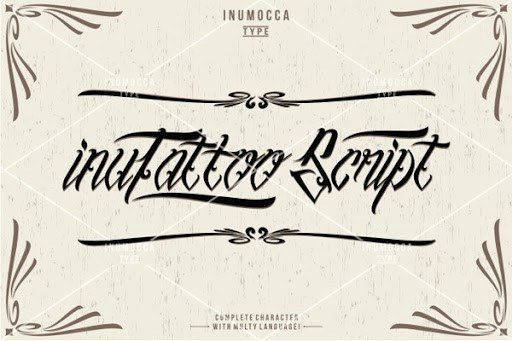
Today we are going to introduce you to the Inumocca Tattoo Script Font it is the script typeface that was the best choice for tattoo designing. This was inspired by tattoo lettering with swirl tattoos.
The brush appearance of this typeface would be the great pair of carosello font. There are 3 different patterns of this typeface are available that have around 1027 glyphs.